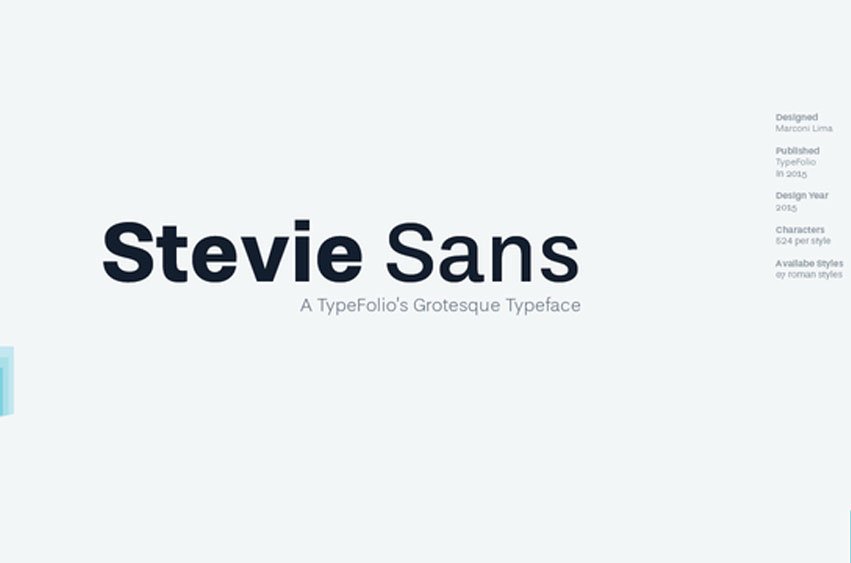
Stevie Sans Font Some time ago, a designer discovered his first strange typeface while compiling a catalog of photographic typesetting-era typographies. It instantly made an impressionful first impression; sneaking its way into his brain as an unexpected style to complete work on later. Behind its apparent neutrality is an intricate balance game which ultimately leads back to basic principles of design that provide its power – giving rise to what may appear grotesque fonts.
Stevie Sans is the solution to time’s incessant ticking; an aesthetic bridge between past and future. A 21st Century Grotesque font must look this way! Stevie Sans is an ideal font choice for your next project, boasting seven roman styles ranging from black to thin with support for multiple languages and essential opentype features.